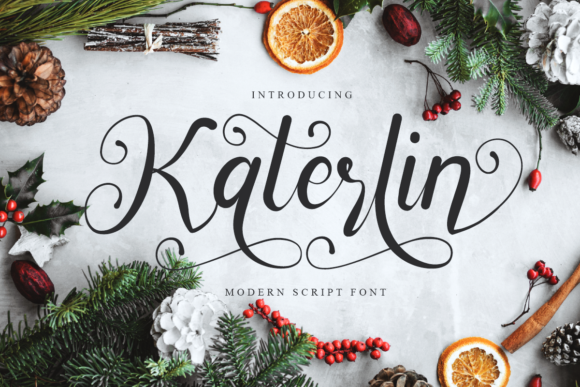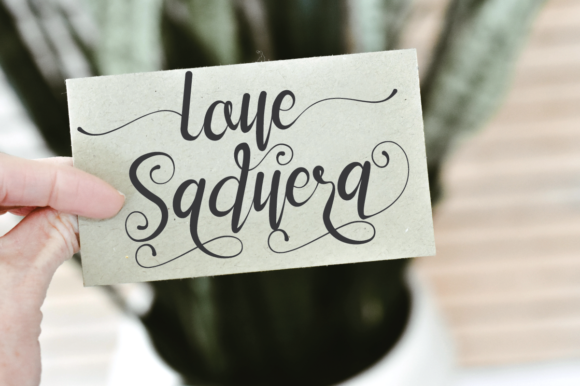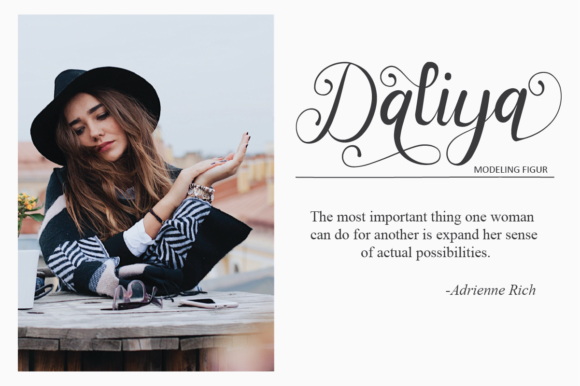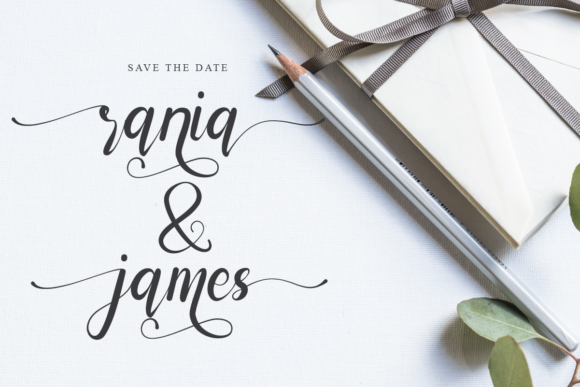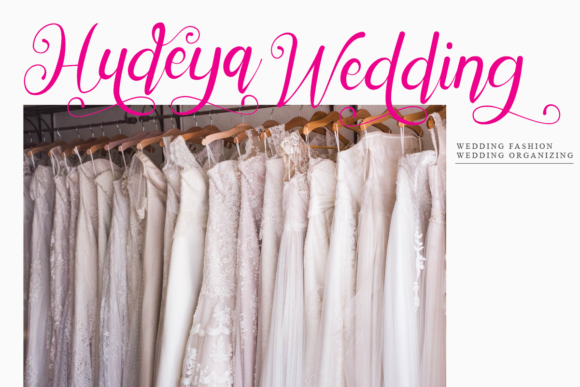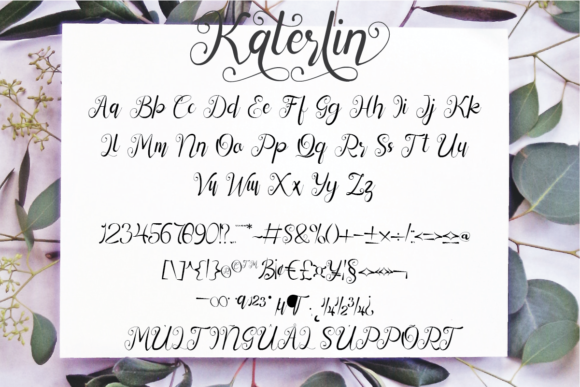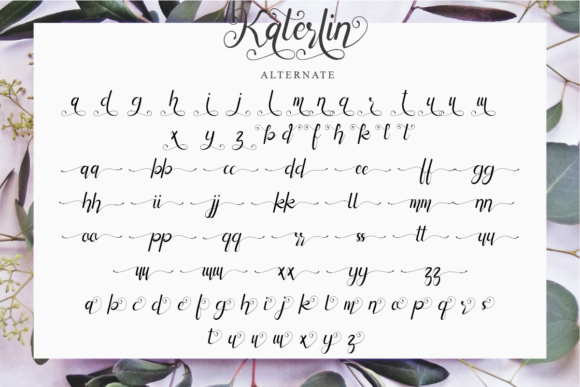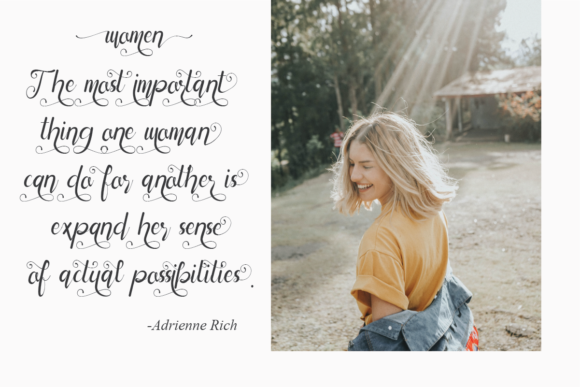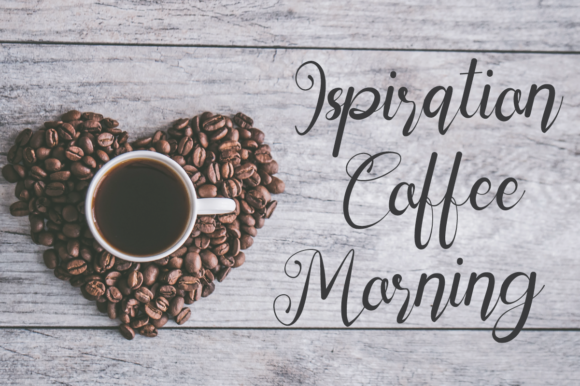
Katerlin Font
About Katerlin Font
Katerlin is a stunning handwritten font that exudes elegance and sophistication. With its graceful and flowing strokes, this font is a perfect choice for a wide range of design projects, especially those that require a touch of personalized and handwritten charm.
The beauty of Katerlin lies in its versatility and timeless appeal. Whether you’re working on wedding invitations, thank you cards, quotes, greeting cards, logos, business cards, or any other design that needs a handwritten touch, Katerlin seamlessly adapts to various contexts, making it a reliable and go-to choice for any creative endeavor.
The flowing and elegant lines of Katerlin add a sense of grace and refinement to your designs, making them stand out and leave a lasting impression on your audience. Its handwritten nature gives it a personal and artisanal touch, setting it apart from standard fonts and adding a sense of authenticity to your projects.
The font’s PUA encoding allows you to access all of its glyphs and swashes with ease, providing you with a wide range of design options and variations. You can easily experiment with different letter combinations, ligatures, and stylistic alternates, giving your designs a unique and customized look.
Katerlin’s readability ensures that your message is conveyed clearly and effectively, regardless of the design context. Whether used in large headlines or small text, this font remains legible and captivating, making it a versatile and reliable choice for a variety of projects.
In summary, Katerlin is an elegant and flowing handwritten font suitable for a wide range of design projects. Its timeless appeal, along with its PUA encoding for easy access to glyphs and swashes, makes it perfect for wedding invitations, thank you cards, quotes, greeting cards, logos, business cards, and more. Embrace the elegance and charm of Katerlin and elevate your designs to new levels of sophistication and beauty.